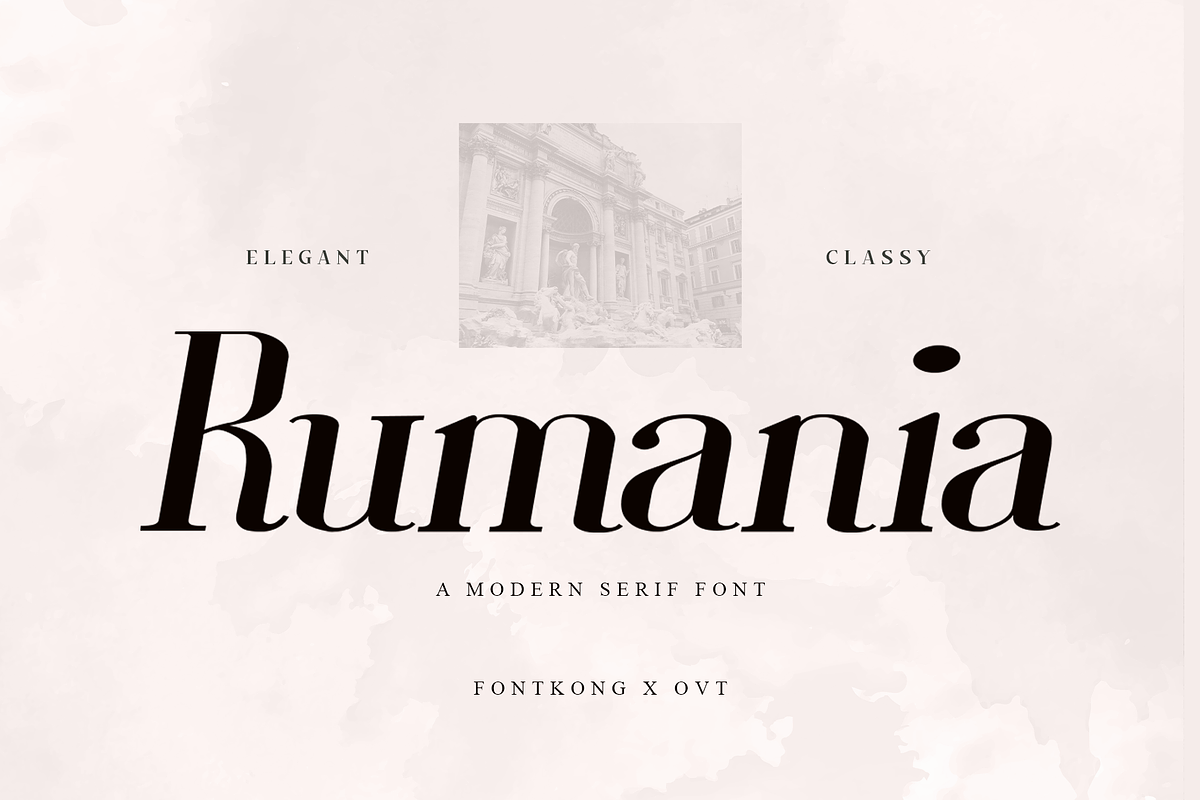
Rumania - Modern Serif Font Free Download is a sleek and contemporary serif typeface designed with strong lines and a sophisticated edge. Perfect for editorial design, high-end branding, logos, fashion projects, and luxury marketing, Rumania brings elegance and clarity to your typography.
With its sharp serifs and balanced letterforms, Rumania is ideal for creating clean, modern designs that still maintain a touch of classic sophistication. Whether you're working on a website, a magazine layout, or premium product packaging, Rumania adds a refined and timeless touch to your work.